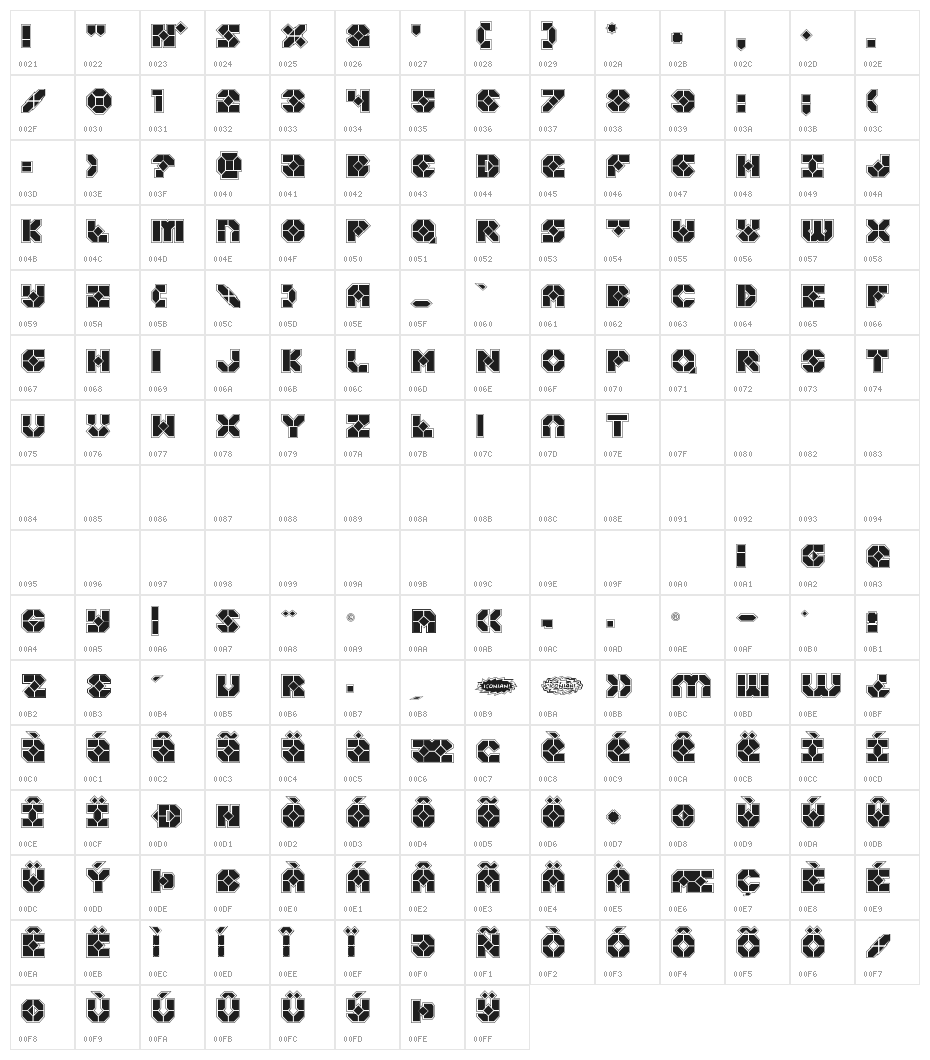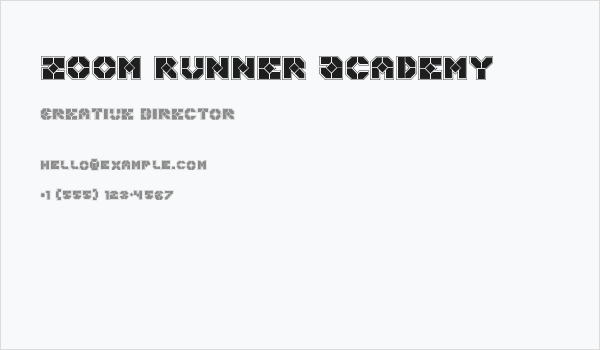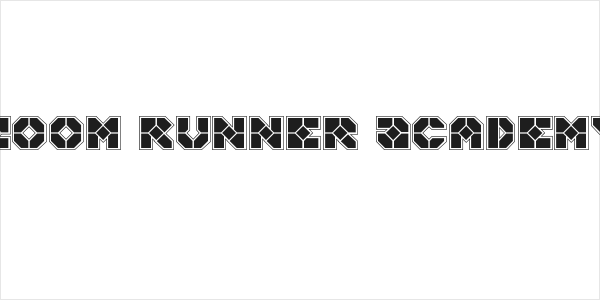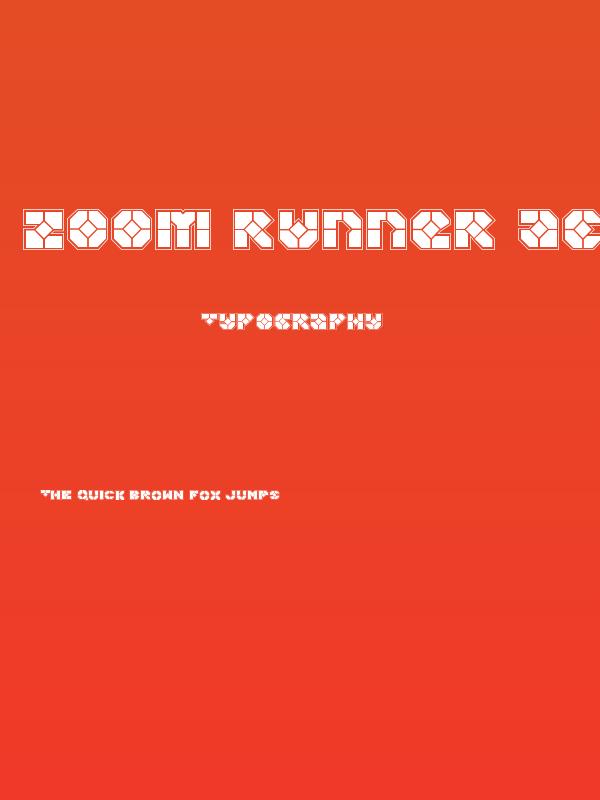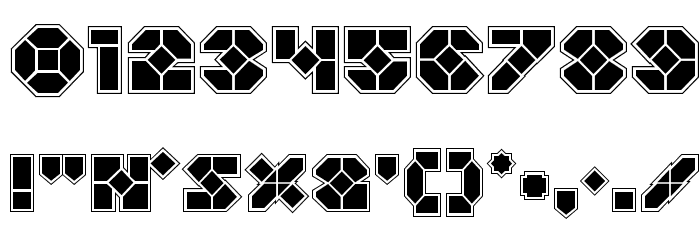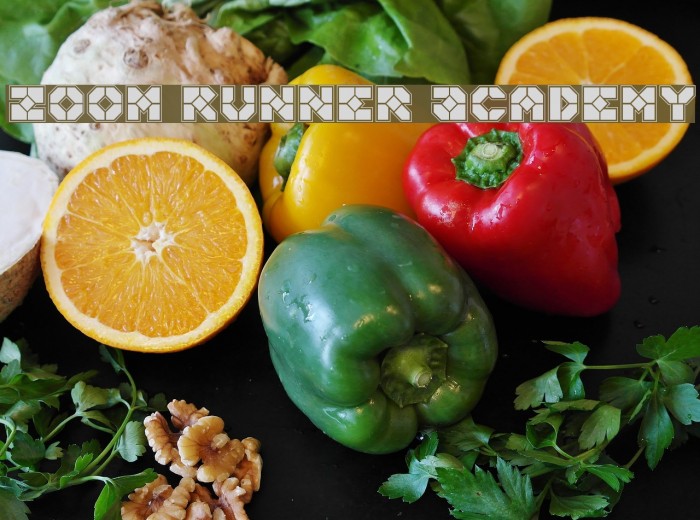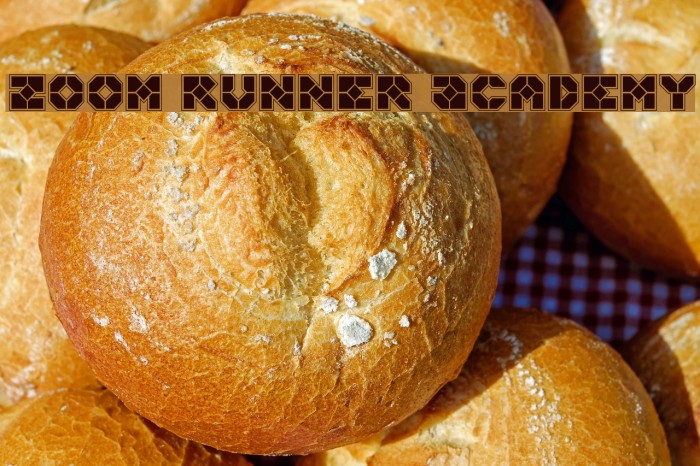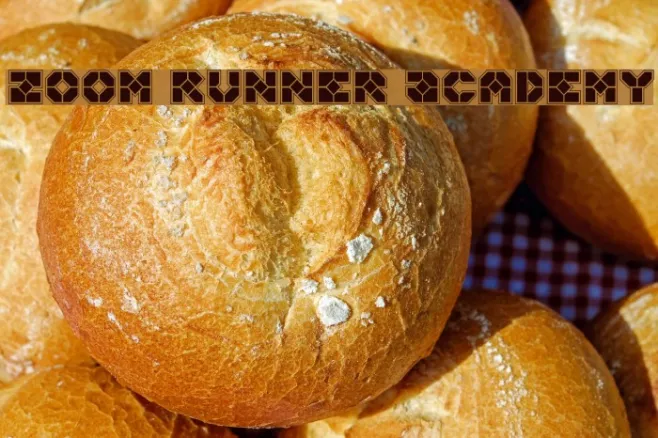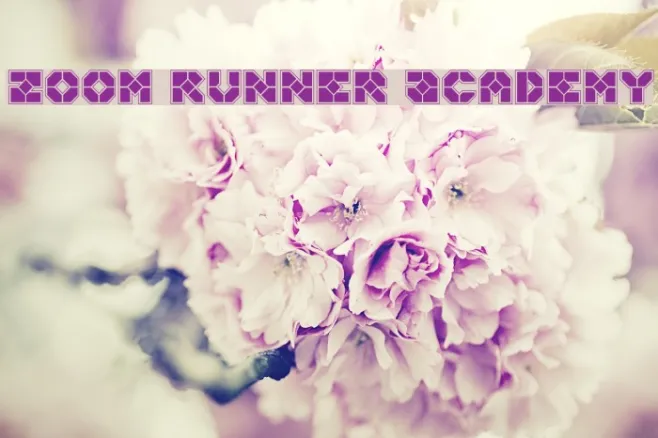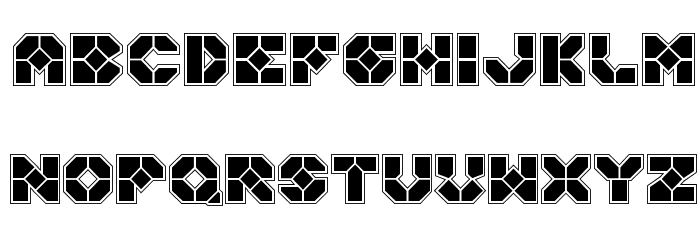
Zoom Runner Academy Font
Zoom Runner Academy Description
This font features a bold, geometric design with a distinct, futuristic aesthetic. Each character is constructed using a series of interconnected shapes, creating a mosaic-like appearance. The letters are uppercase and have a uniform height, with consistent stroke thickness throughout. The style is highly decorative, making it ideal for eye-catching displays. The numbers and special characters follow the same geometric pattern, ensuring a cohesive look across all elements. The font's unique structure makes it stand out, offering a modern twist on traditional letterforms.
| Overall Style | Futuristic, Decorative |
| Proposed Projects | Ideal for sci-fi themed posters, video game titles, futuristic branding, and tech-related advertisements. |